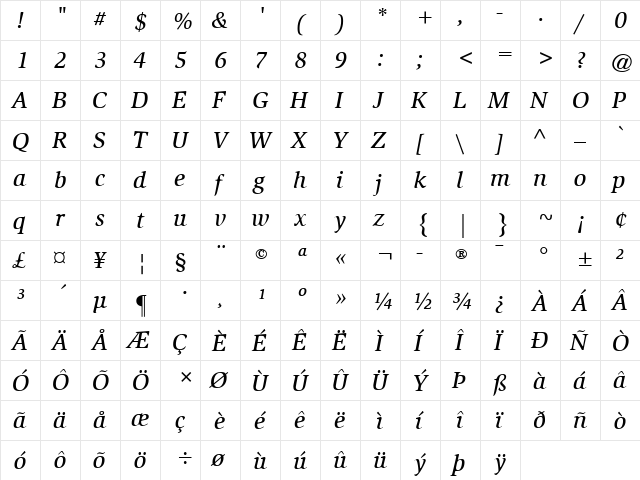
Slimbach LT Medium Italic Font Preview
Slimbach LT Medium Italic
Slimbach LT Medium Italic Font Details
Design Context for Slimbach LT Medium Typeface
Slimbach LT Medium is a composed and adaptable typeface that performs quietly and consistently across a wide range of design contexts. The dynamic lean of this cut emphasises speed and emphasis in any layout. The delicate stroke weight brings airiness and refinement to layouts.